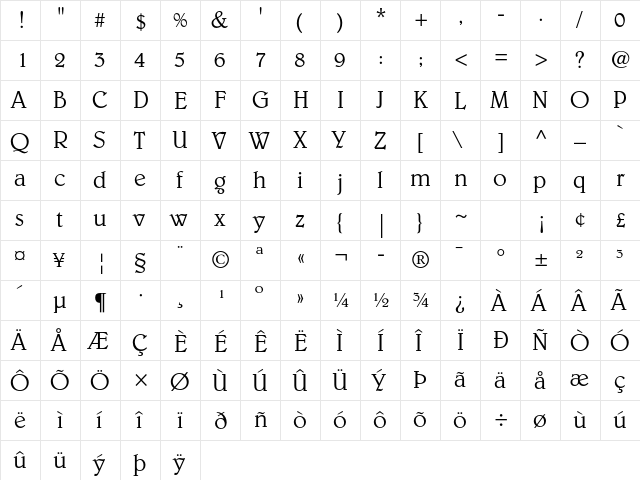
Belwe Std Light
| Designer | Georg Belwe |
Design Context for Belwe Std Typeface
Belwe Std is a composed and adaptable typeface that performs quietly and consistently across a wide range of design contexts. The delicate stroke weight brings airiness and refinement to layouts.